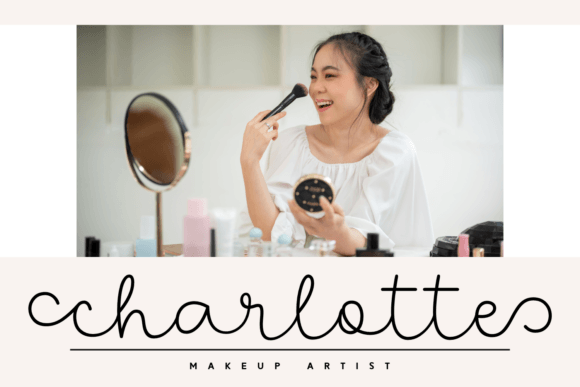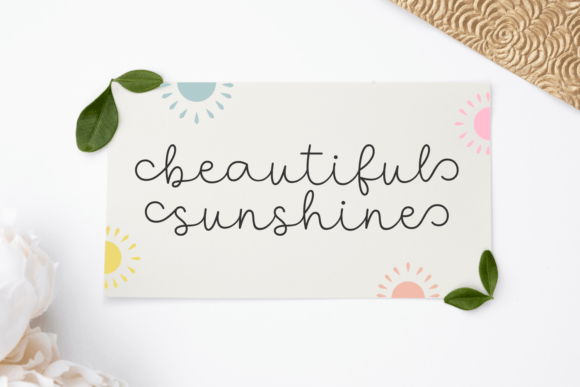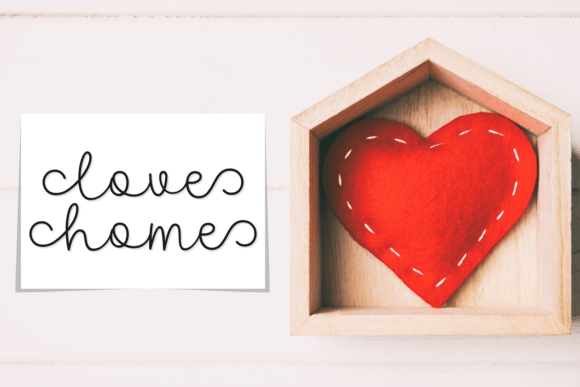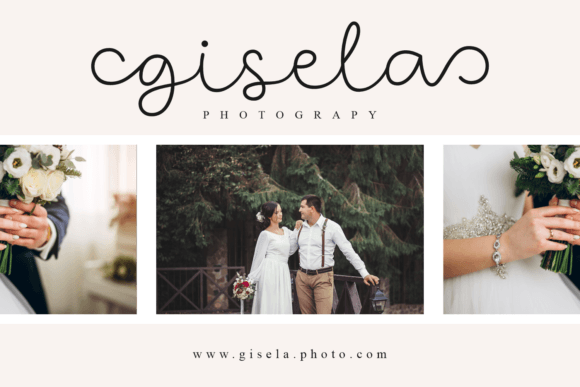
Creating Timeless Moments with the Elora Font
Do you remember the moment when you first fell in love with a font? For many designers, it’s a moment that sparks creativity and inspires new ideas. For me, it was when I stumbled upon the beautiful Elora Font – a script calligraphy font that exudes elegance and sophistication. Its soft curves and classic look make it the perfect choice for special occasions, from weddings to anniversaries.
The Elora Font is a timeless treasure for designers, offering a charming and sophisticated touch to any text. Its versatility makes it ideal for invitations, greeting cards, and other creative projects where you want to add a touch of class. Whether you’re a seasoned designer or just starting out, the Elora Font is a valuable addition to your toolkit, providing endless possibilities for creating beautiful and memorable designs.
Elora Font Key Features
- Size: The font family includes 6 styles, ranging from Thin to Black, providing a wide range of options for designers.
- Unique Characteristics: Elora Font features a unique blend of modern and elegant design elements, with subtle flair and sophistication, making it perfect for creating a professional and stylish look.
- Language Support: Elora Font supports a wide range of languages, including Latin, Cyrillic, and Greek, making it suitable for global designs and multilingual projects.
Elora Font Review
As a designer, I was excited to try out the Elora Font, a script font with a vintage flair. ✨ The font does a great job of capturing the essence of handwritten text, with beautiful flourishes and connecting strokes. It’s perfect for creating a warm and inviting atmosphere in your designs.
- ✨ Unique and elegant design
- ✨ Great for titles, headings, and quotes
- ✨ Supports various languages
However, there are a few limitations that I’d like to mention. ⚠️ The font can be a bit difficult to read at smaller sizes, and the connecting strokes can sometimes make it hard to distinguish between letters. Additionally, the font doesn’t include a lot of variation in terms of weight and style, which can limit its versatility.
- ⚠️ Limited readability at smaller sizes
- ⚠️ Connecting strokes can be confusing
- ⚠️ Limited weight and style options
Overall, I’d say that the Elora Font is a great choice for designers who want to add a touch of elegance and sophistication to their projects. While it may have some limitations, its unique design and beautiful flourishes make it a standout font in its category.
Elora Font is a beautiful, elegant script font that pairs well with modern and minimalist designs.
Elora Font is a versatile font that works well for a variety of design projects, including logos, invitations, and signage.
Elora Font is a great choice for presentations and documents that require a touch of elegance and sophistication.
Some tips for getting the most out of Elora Font include:
- Pairing it with bold, modern fonts for a striking contrast.
- Using it for invitations, wedding stationery, and other special occasions.
- Experimenting with different font sizes and styles to create a unique look.